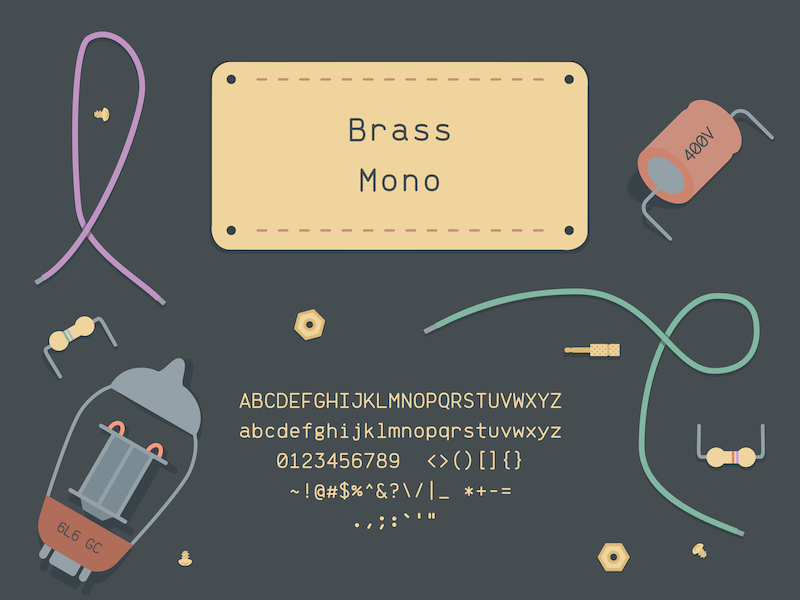
| Font name: | Brass Mono |
| Categories | Basic, Fixed width |
| Author: | Peter Fonseca |
| Note by Peter Fonseca | |
| A free retro monospaced font inspired by 20th century electrical and mechanical design. It's open source and a solid choice for writing code. |